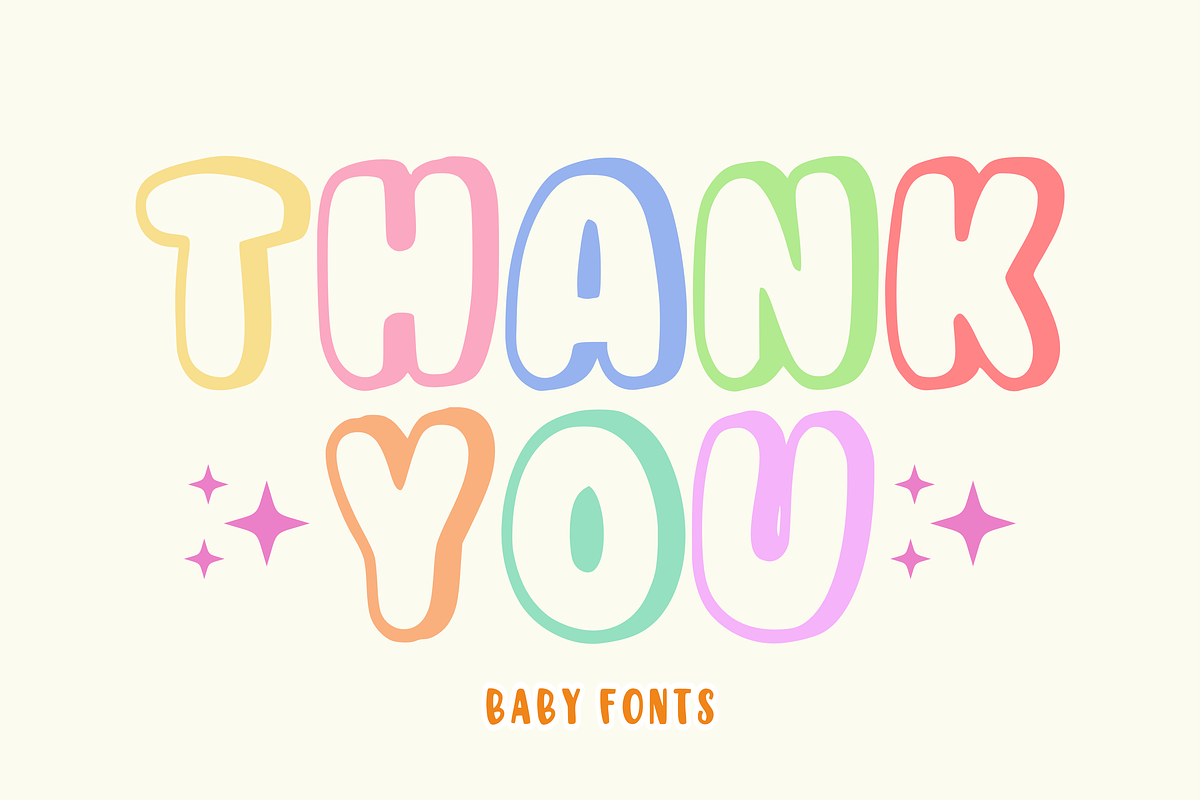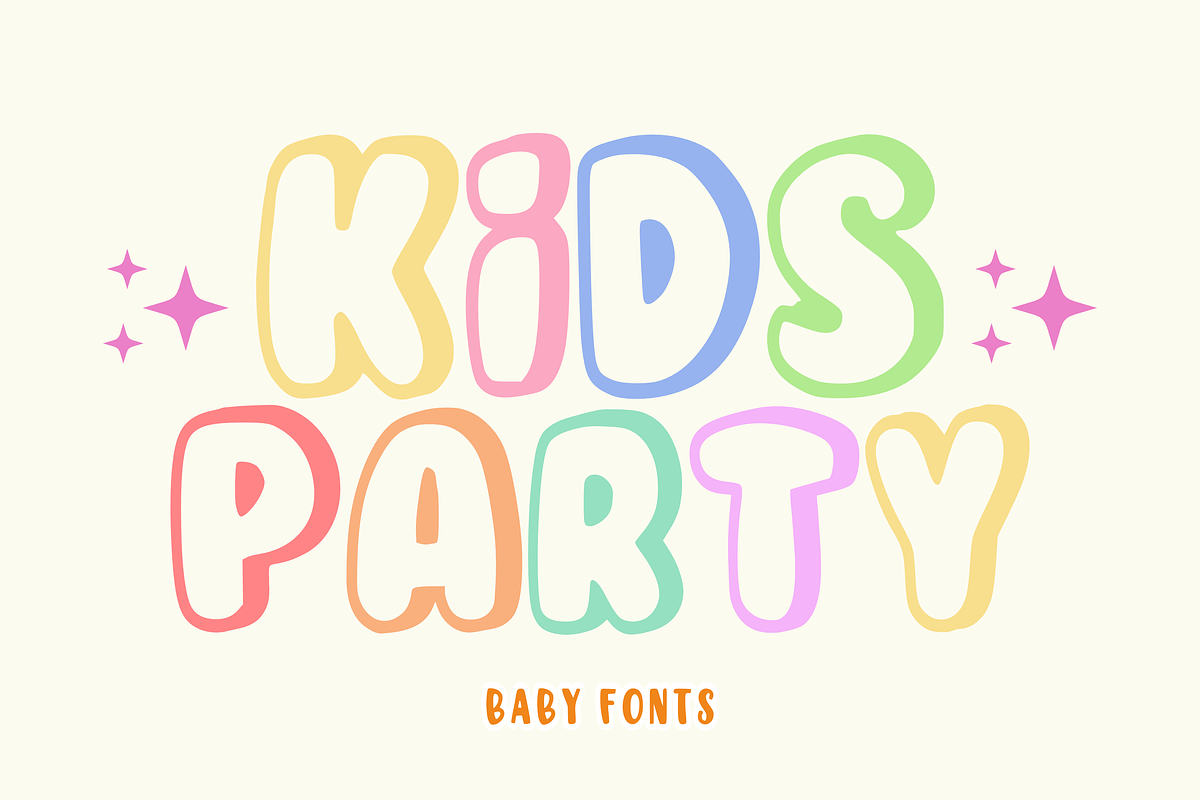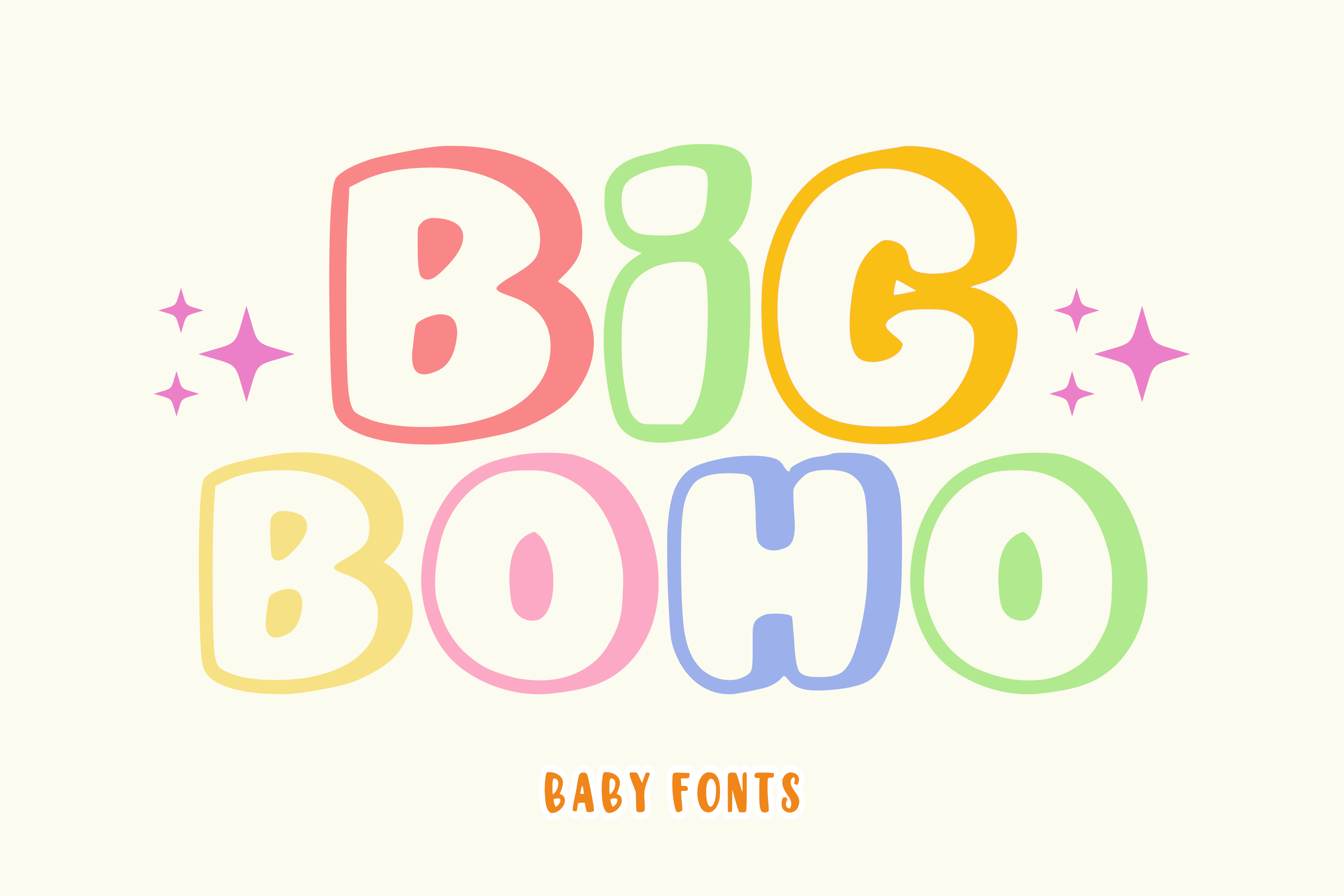
Big Boho - Baby Font Types
Big Boho is a cheerful and cute display font. It is lively, cheerful, and elegant. Big Boho is a stunning font for various cute-themed designs, such as t-shirts, displays, crafts, stickers, quotes, mugs, sublimation, posters, web, banners, and many more.